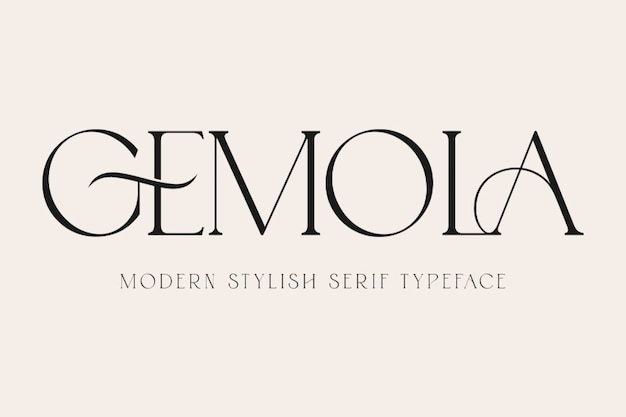
Gemola Font
Gemola is a font that exudes elegance and style. With its refined curves and sophisticated lines, it brings a touch of class to any project. Perfect for luxury branding, invitations, and high-end design, Gemola enhances your text with a polished, stylish look, making it ideal for those seeking a font that combines grace and modernity in a timeless fashion.
Gemola Regular (400)